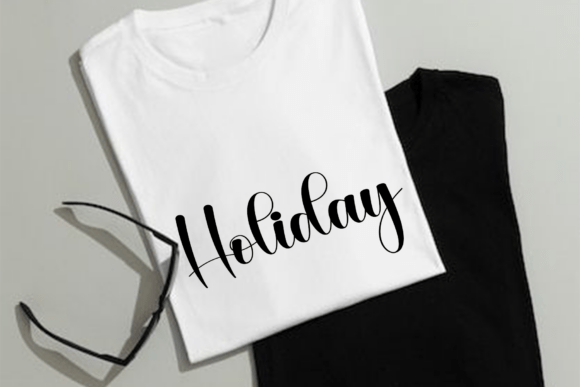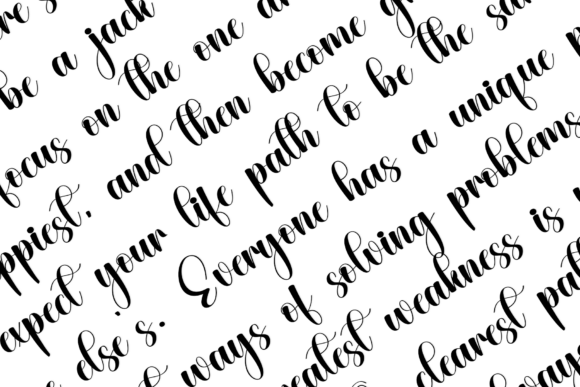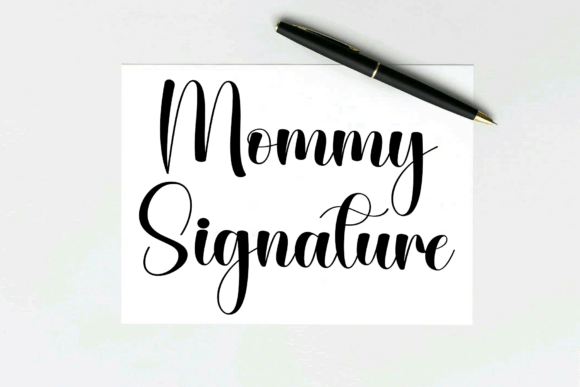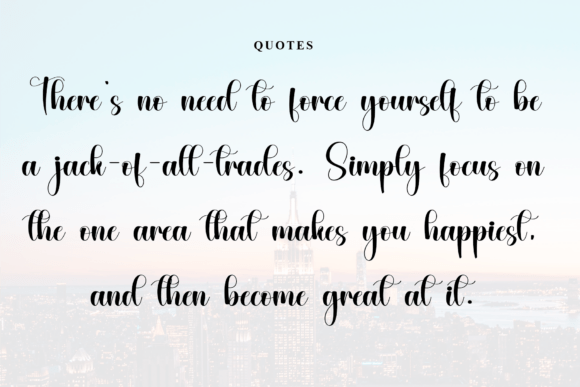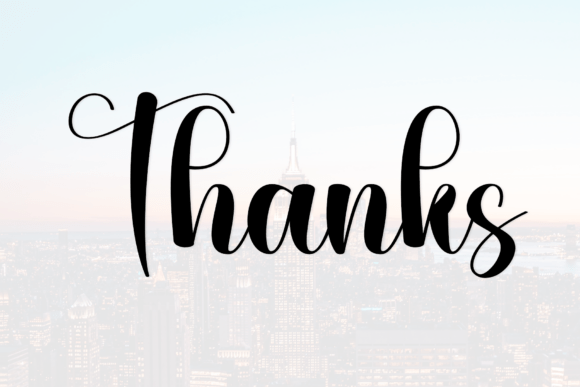
A Touch of Elegance: Unveiling the America Font
Remember the moment when you first sketched out the idea for your dream project? The spark of creativity, the rush of excitement, and the anticipation of bringing it to life? For designers, this moment is a thrill unlike any other. And, with the right tools, it can be even more magical. That’s where the America Font comes in – a refined and modern handwritten font that embodies the perfect blend of style and sophistication.
This versatile font is designed to elevate your designs, whether you’re crafting a logo, wedding invitation, or editorial piece. Its smooth curves, stylish alternates, and multilingual support make it an invaluable asset for designers looking to add a touch of elegance and flair to their work. With the America Font, you’ll have the freedom to express your creativity and bring your vision to life.
America Font Key Features
- Unique Characteristics: America Font features a distinctive, bold, and modern design aesthetic, with a strong emphasis on legibility and readability.
- Font Style: America Font is available in multiple font styles, including Regular, Bold, Italic, and Bold Italic, allowing designers to add emphasis and variety to their designs.
Design Review: America Font
Overall, the America Font is a solid, classic choice for those looking to evoke a sense of American heritage in their designs. ✨
Here are some of the strengths I noticed:
- Timeless aesthetic: The America Font’s classic feel makes it suitable for a wide range of applications, from historical to modern designs.
- Clear readability: The font’s clear, legible lines ensure that the text remains easy to read, even at smaller font sizes.
- Simple yet versatile: The font’s simplicity makes it easy to pair with other fonts, while its versatility allows it to be used in various contexts.
However, I also noticed some limitations:
- Not ideal for modern/minimalist designs: The font’s classic feel may not be the best fit for modern, minimalist designs that require a more contemporary look.
- Lacks uniqueness: The America Font is not particularly distinctive, which may make it harder to stand out in a crowded design landscape.
In conclusion, the America Font is a reliable, classic choice for those looking to evoke a sense of American heritage in their designs. While it may not be the most exciting or unique option, it’s a solid choice for those who value simplicity and readability.
Practical Application Guide for America Font
Tips for Getting the Most Out of America Font
Use America Font for designs that require a classic, timeless feel. This font is particularly well-suited for use in logos, business cards, and other marketing materials.
America Font is commonly used in:
- Marketing materials, such as brochures and flyers
- Wedding invitations and event materials
Alternatives to America Font
Playfair Display is a luxurious, high-end serif font ideal for use in titles, headings, and other prominent text elements. It’s particularly well-suited for projects that require elegance and sophistication, such as high-end fashion magazines, luxury brands, or fine art exhibitions.
Compared to America Font, Playfair Display is more ornate and luxurious, with intricate details and flourishes. While America Font is often used for casual, friendly text, Playfair Display is better suited for formal, high-end applications.
Merriweather is a classic, traditional serif font that exudes a sense of warmth and approachability. It’s a great choice for use in body text, particularly in contexts where a sense of history and tradition is desired, such as in academic or historical publications.